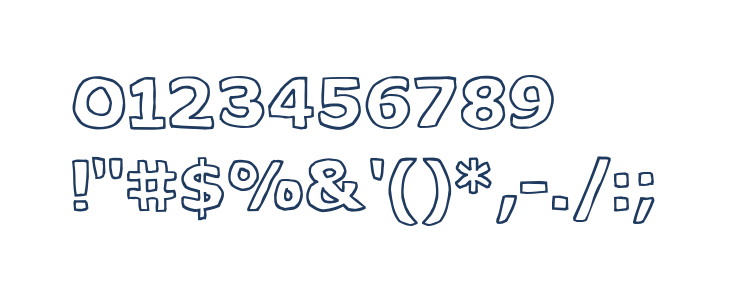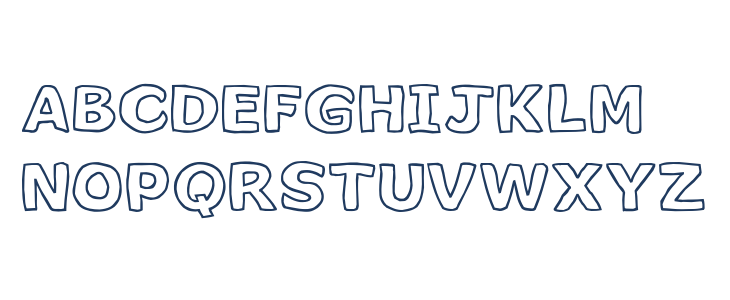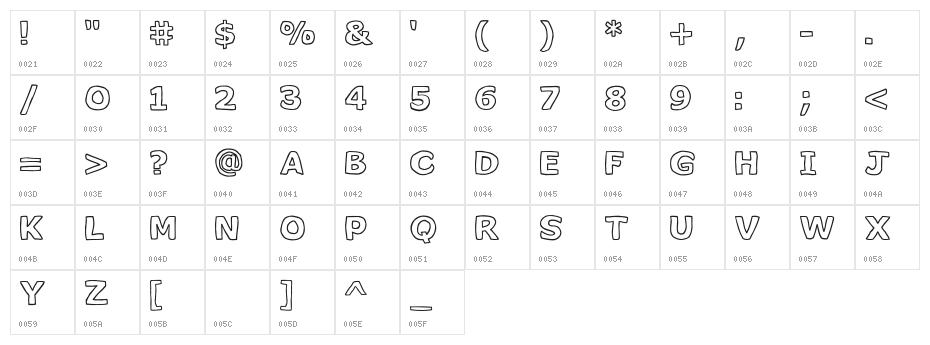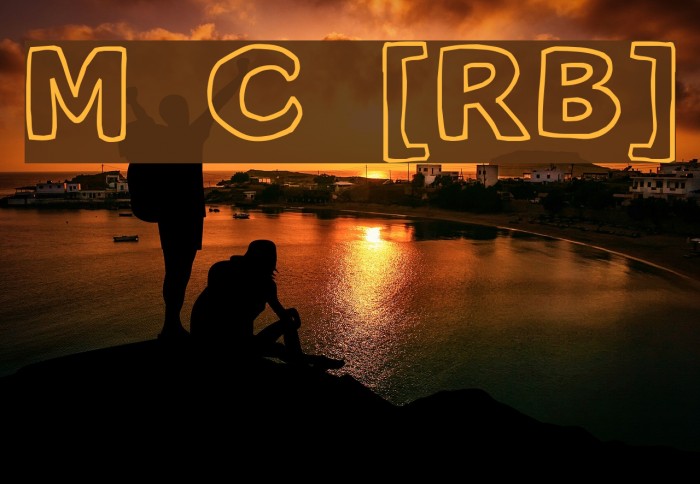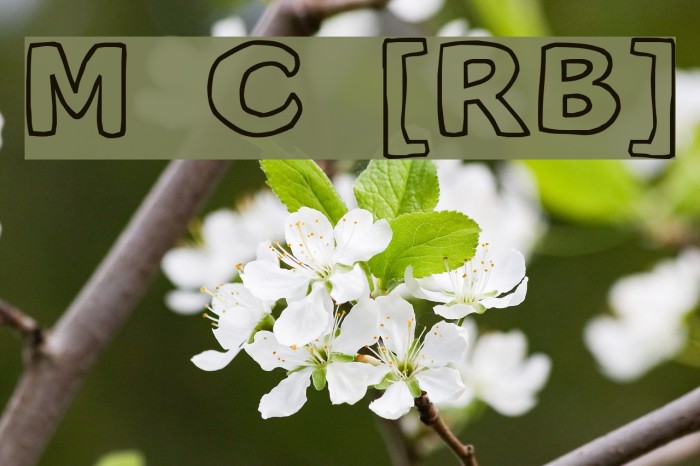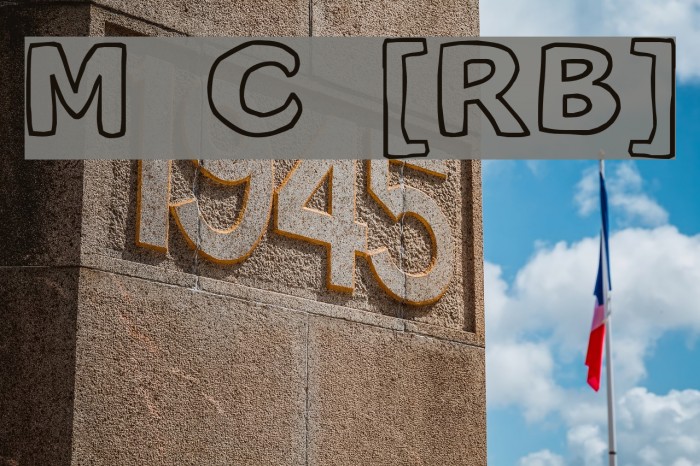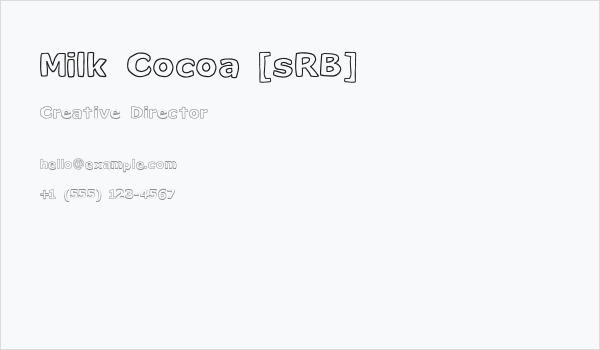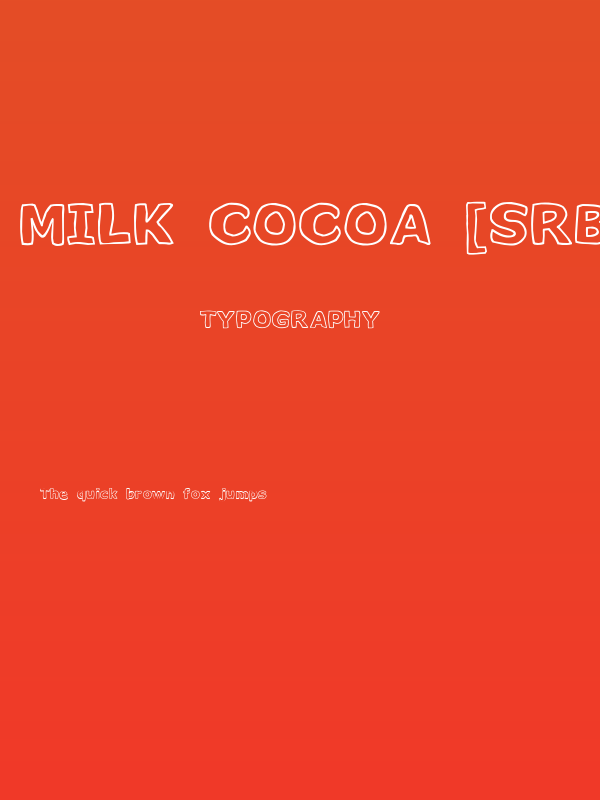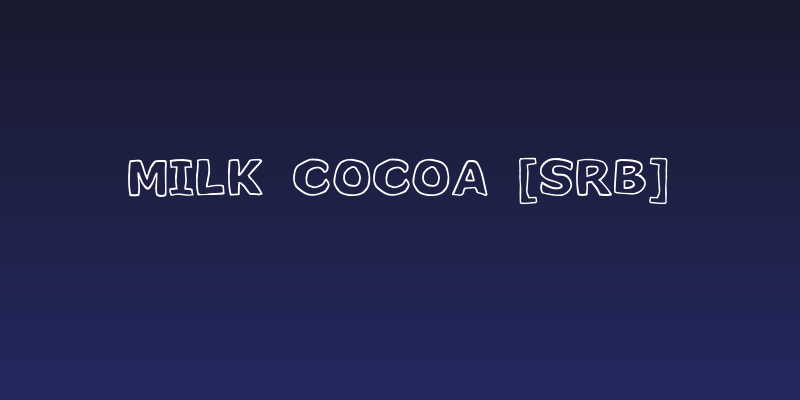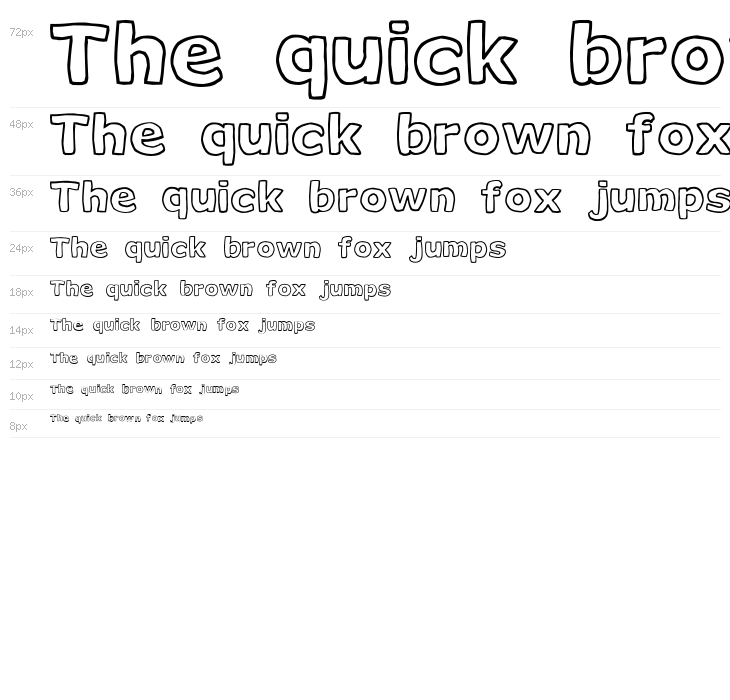
Milk Cocoa [sRB] Font
Milk Cocoa [sRB] Description
This playful and bold font features a unique outline style that gives it a hand-drawn appearance. The characters are rounded and slightly irregular, adding a whimsical and casual feel. The uppercase and lowercase letters maintain a consistent style, with the uppercase being slightly larger and more pronounced. Numbers and special characters are designed to match the overall aesthetic, making this font versatile for various creative projects. The thick outlines provide a strong visual impact, making it suitable for eye-catching designs.